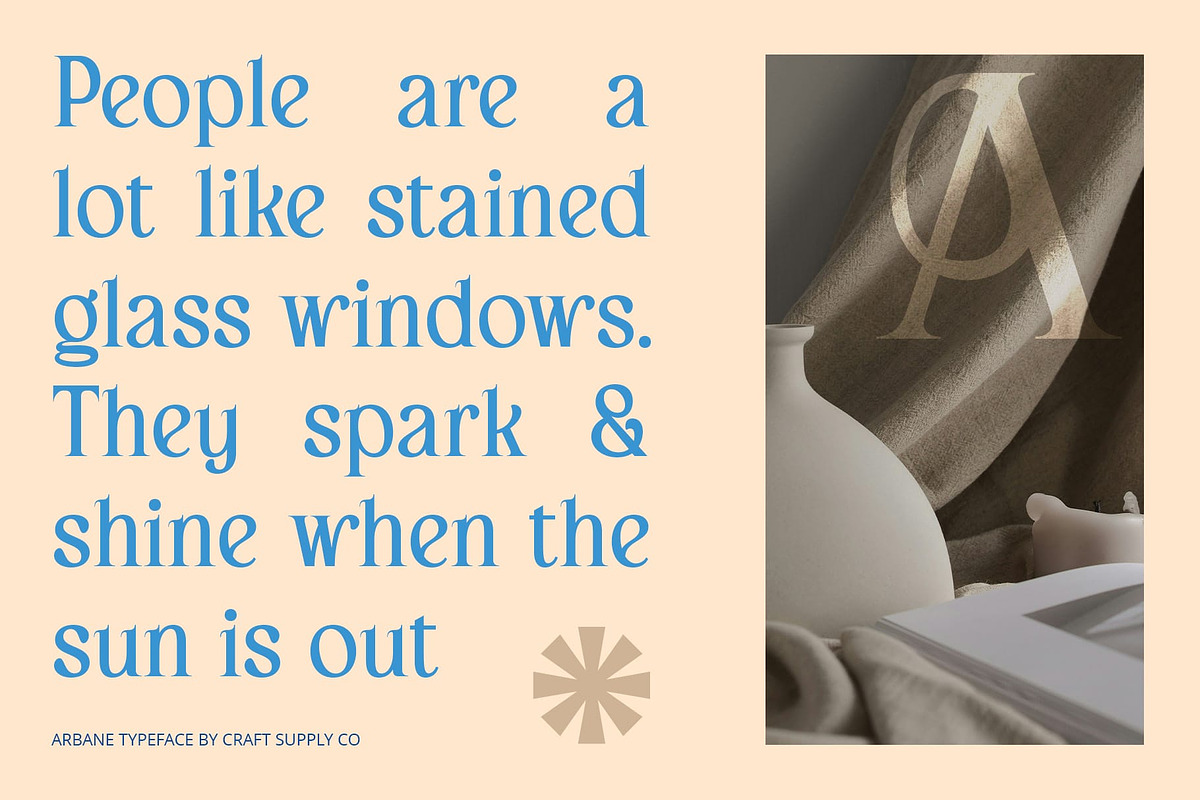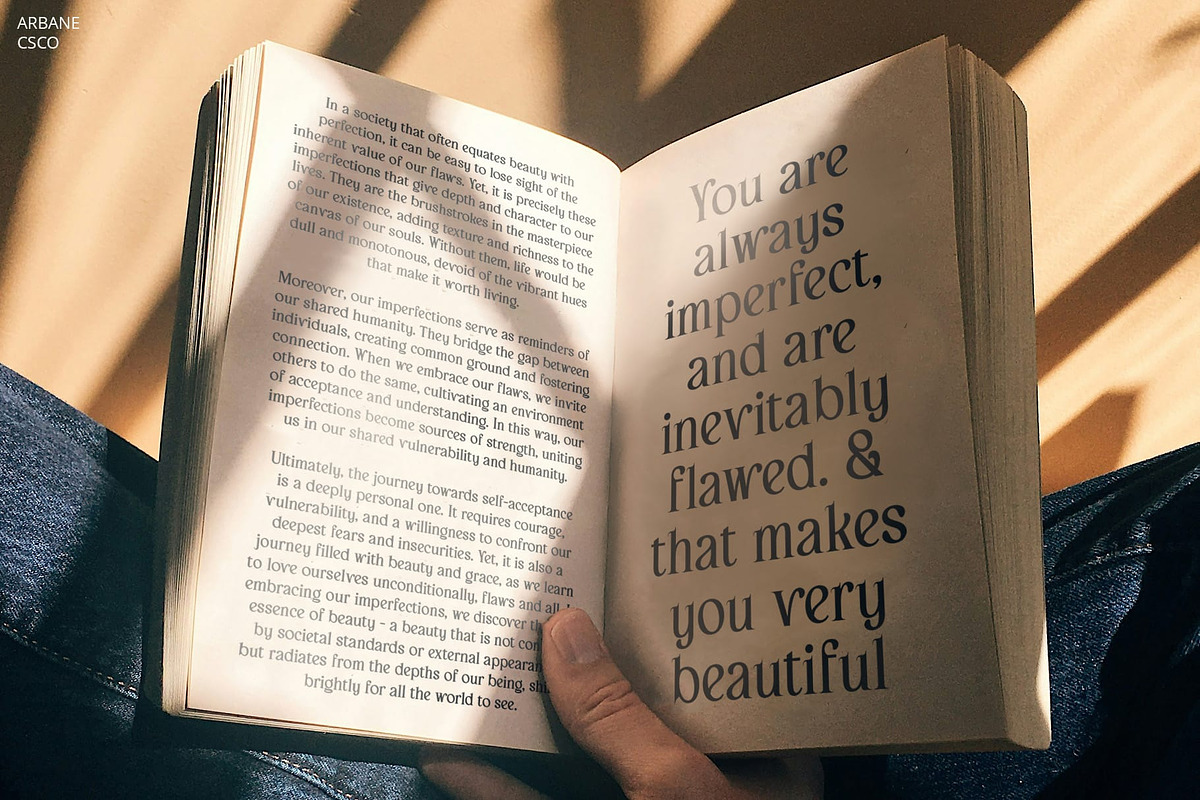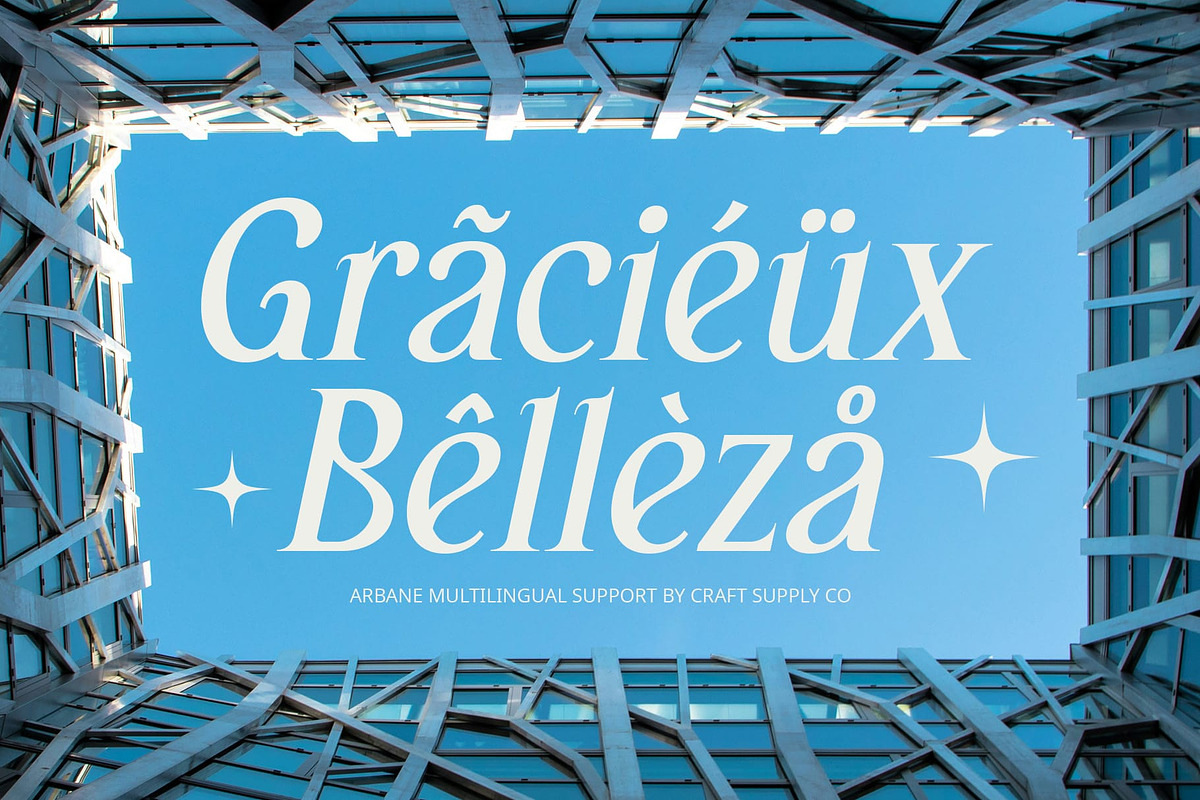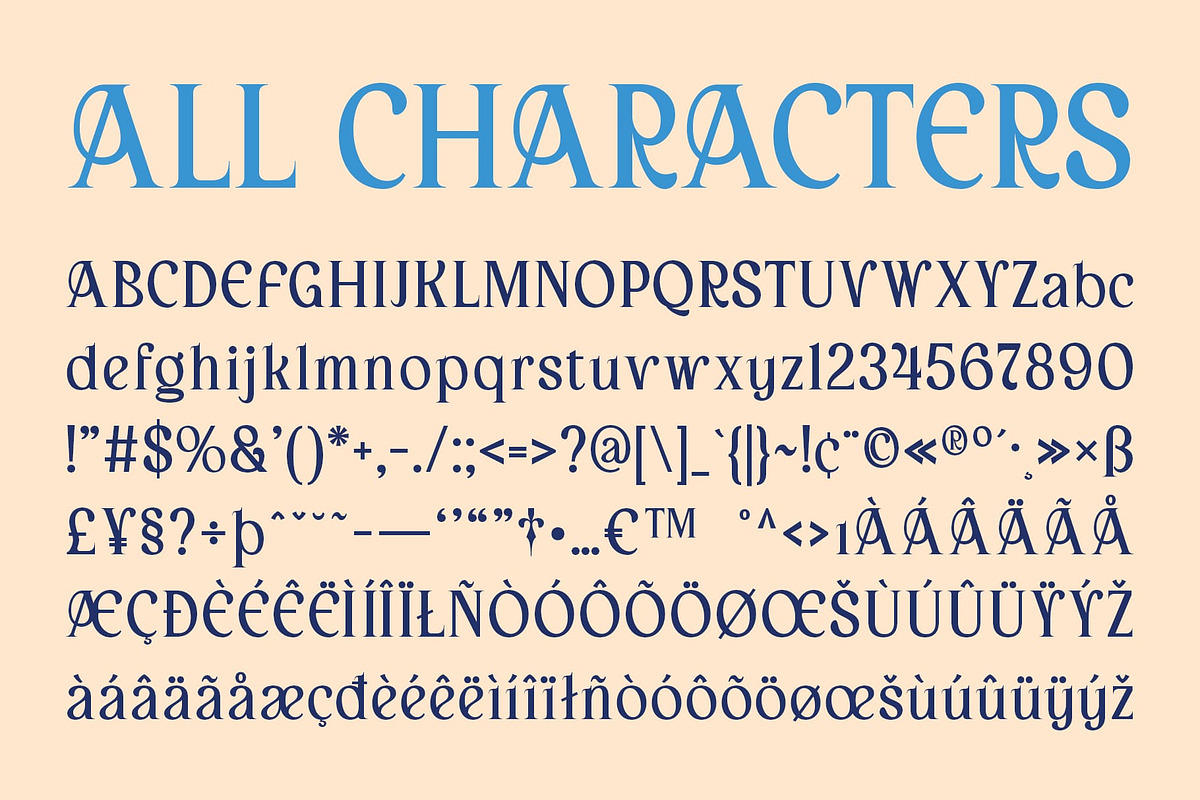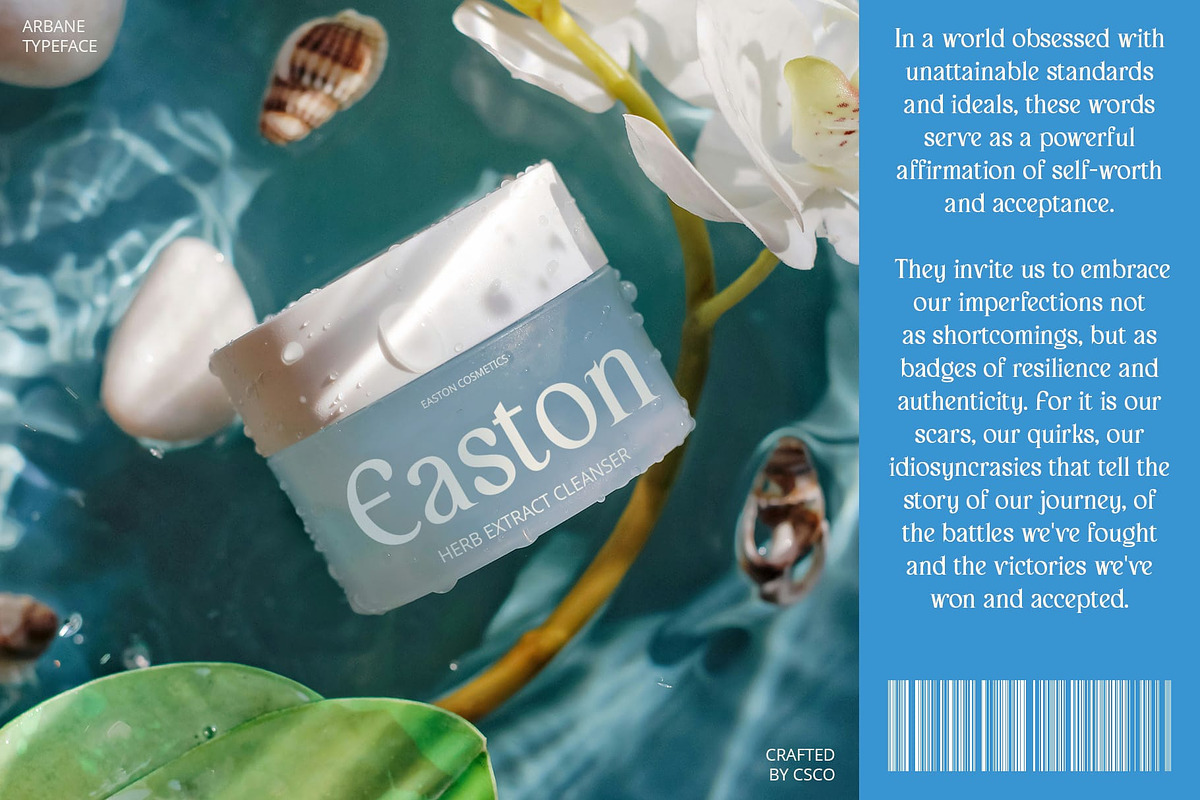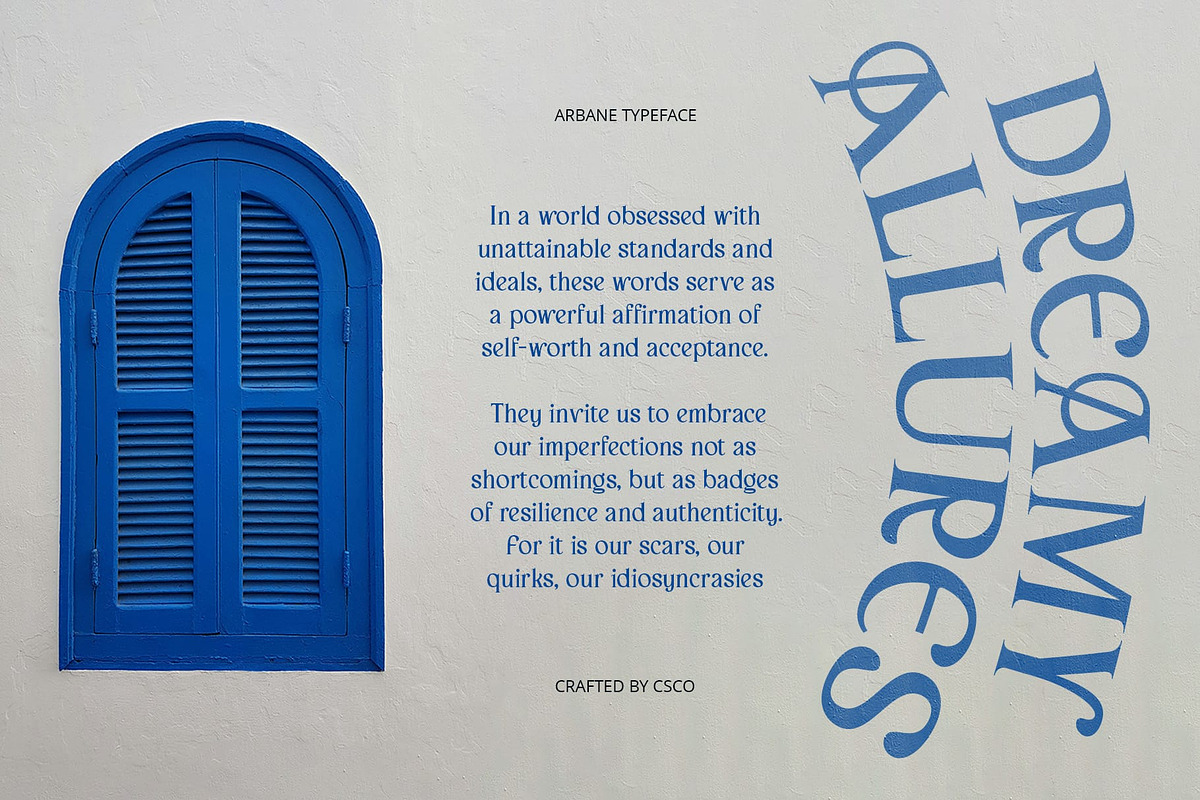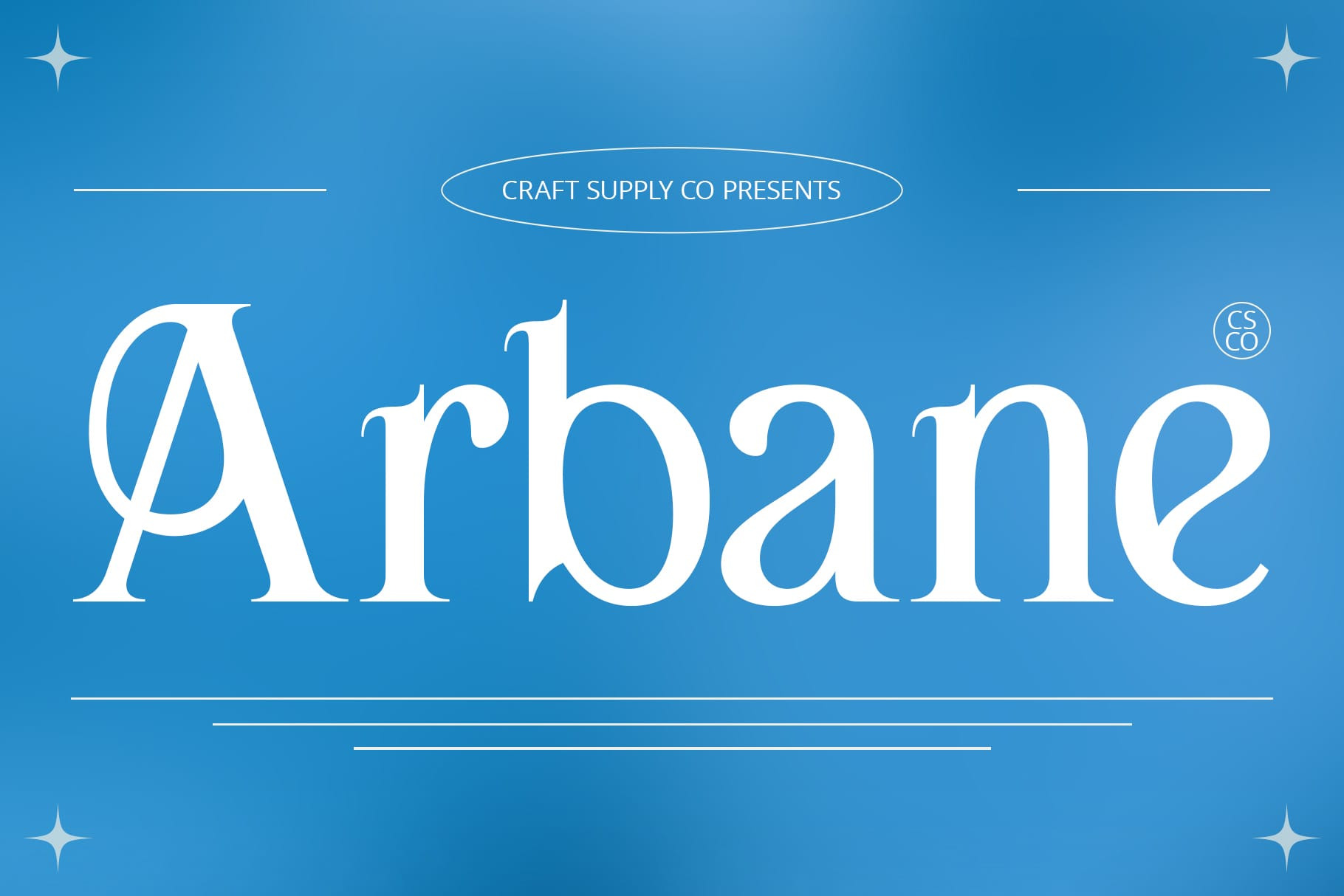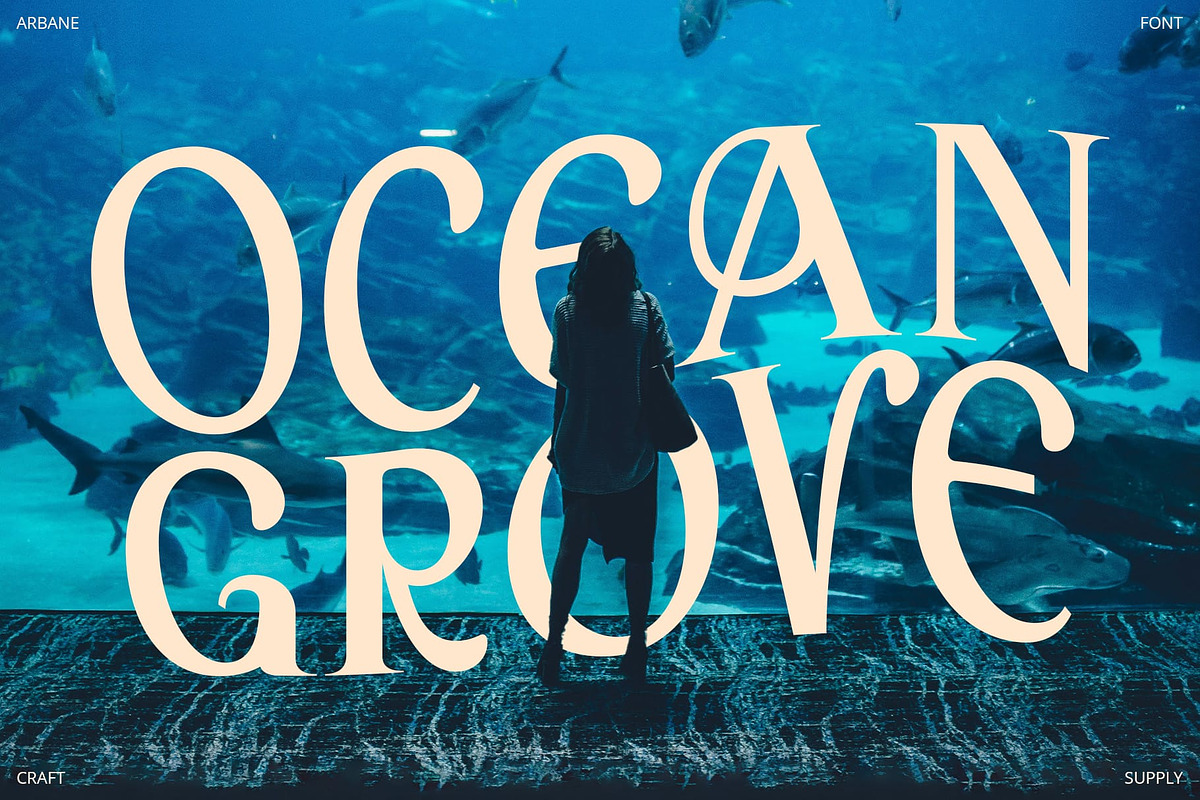
Arbane – Art Nouveau Font
Arbane: Where Elegance Meets Art
Art Nouveau Serif
Arbane is a serif font with an elegant Art Nouveau style, adding uniqueness and elegance to each design. Perfect for creating visually stunning projects, this font brings a touch of classic beauty and artistic flair to your work.
Elegant Art Nouveau Style
With its graceful curves and intricate details, Arbane offers a sophisticated take on traditional serif fonts. The Art Nouveau design creates a captivating and timeless look, ideal for branding, editorial layouts, and other projects that need a touch of artistic elegance.
Perfect for Unique Displays
Whether you’re designing a vintage-inspired poster or creating an elegant logo, Arbane is sure to make an impression. Its unique style and refined details make it perfect for displays that demand attention and convey a sense of creativity and sophistication.
Versatile and Easy to Use
Despite its distinctive appearance, Arbane is versatile and easy to use. The font works well in both large and small sizes, making it suitable for a variety of applications, from headlines and banners to body text and more. With its blend of elegant design and Art Nouveau style, Arbane adds a captivating and artistic touch to any design.